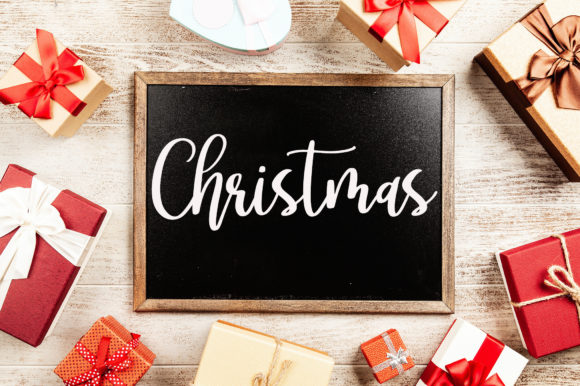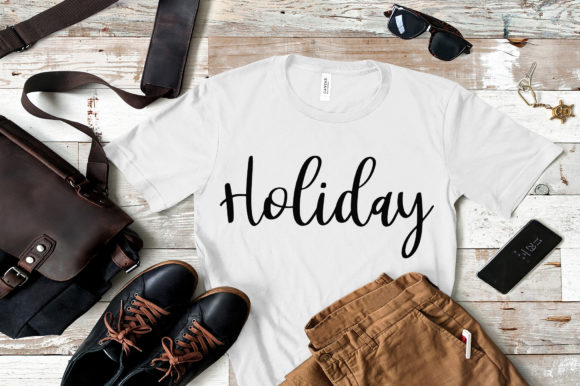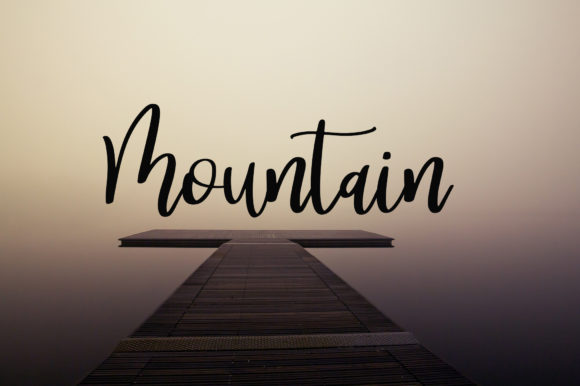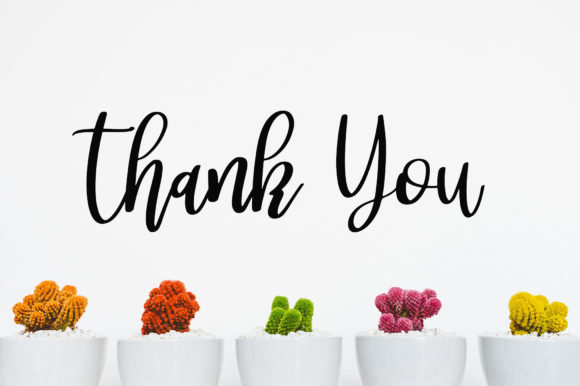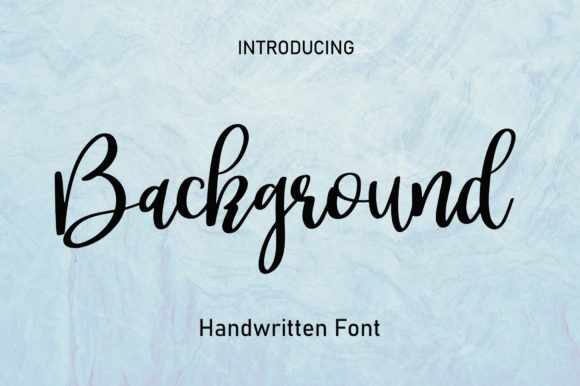
Introducing Background Font: A Sweet, Romantic, and Beautiful Script Font
Are you a designer or crafter looking for a font that can add a touch of elegance and sophistication to your projects? Look no further than Background Font, a stunning script font that is sure to capture your heart. With its beautiful curves and PUA coding, this font is perfect for a wide range of design applications, from romantic wedding invitations to beautiful branding and packaging.
What Makes Background Font So Special?
Background Font is a sweet, romantic, and beautiful script font that features beautiful curves in every letter. The font’s elegant design makes it perfect for adding a touch of sophistication to any project. Whether you’re creating a wedding invitation, a branding campaign, or a packaging design, Background Font is sure to impress.
PUA Coding: What Does it Mean?
One of the standout features of Background Font is its PUA (Private Use Area) coding. But what does this mean, exactly? In simple terms, PUA coding allows you to access all of the glyphs and sweeps in the font with ease. This means that you can easily insert special characters, ligatures, and other unique elements into your designs, giving you even more creative flexibility.
Background Font is a versatile font that is perfect for a wide range of design applications. Whether you’re a professional designer or a crafter working on a personal project, this font is sure to meet your needs. Here are just a few examples of how you can use Background Font:
• Wedding Invitations: Add a touch of romance and elegance to your wedding invitations with Background Font.
• Branding and Packaging: Use Background Font to create beautiful branding and packaging designs that stand out from the crowd.
• Stationery: Create beautiful stationery designs, including letterheads, business cards, and more.
• Signage: Use Background Font to create eye-catching signage for events, businesses, and more.
Tips for Using Background Font
Here are a few tips for getting the most out of Background Font:
• Experiment with Different Sizes: Background Font looks beautiful at a wide range of sizes, so don’t be afraid to experiment and find the perfect size for your project.
• Pair it with Other Fonts: Background Font pairs beautifully with other fonts, so try combining it with a sans-serif font for a striking contrast.
• Use it for Headlines: Background Font is perfect for headlines and titles, so use it to add a touch of elegance to your designs.
Font Name Background Font
Author Neo Studio
In conclusion, Background Font is a beautiful script font that is perfect for designers and crafters looking to add a touch of elegance and sophistication to their projects. With its PUA coding and beautiful curves, this font is sure to impress. Whether you’re creating a wedding invitation, a branding campaign, or a packaging design, Background Font is a versatile and beautiful choice.